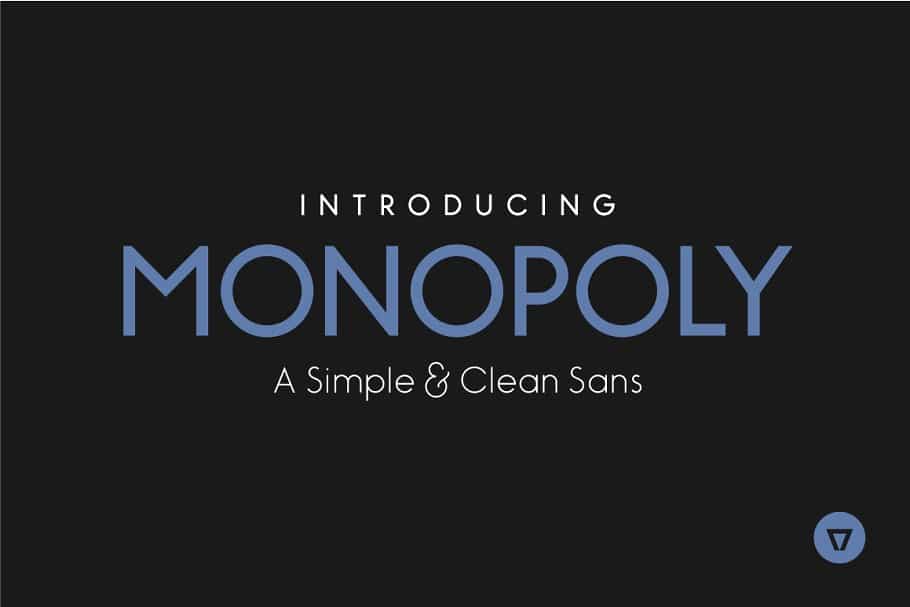
Monopoly typeface is an all-purpose sans typeface, which is clean and modern. Monopoly is offered as a simple one-line sans-serif font with three styles, which are Bold, Light and Bold Inline.